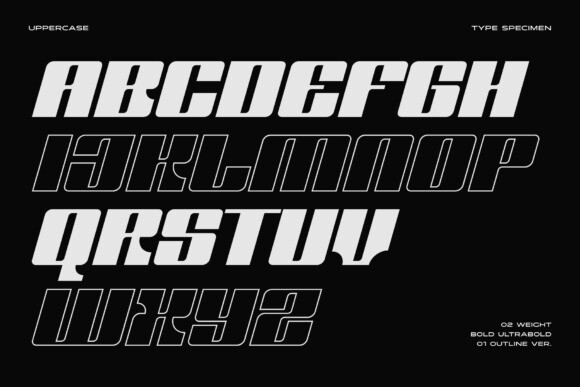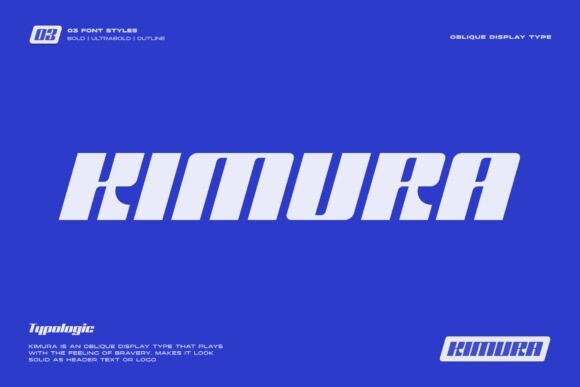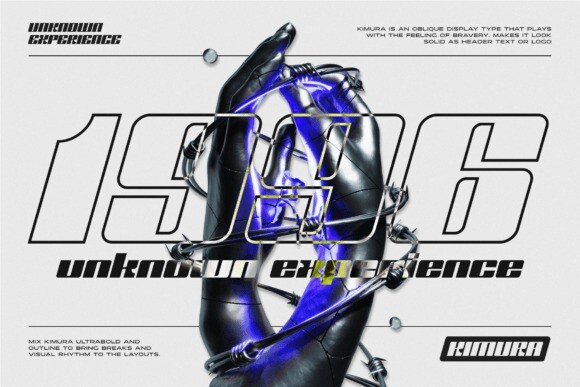
Kimura Font
Kimura Font is a unique and attractive display font that captures the essence of hand-lettering with its fluid and organic lines. With its distinctive personality, this font is perfect for creating one-of-a-kind designs that stand out, such as logos, packaging, editorial titles, and other projects that require a creative touch.